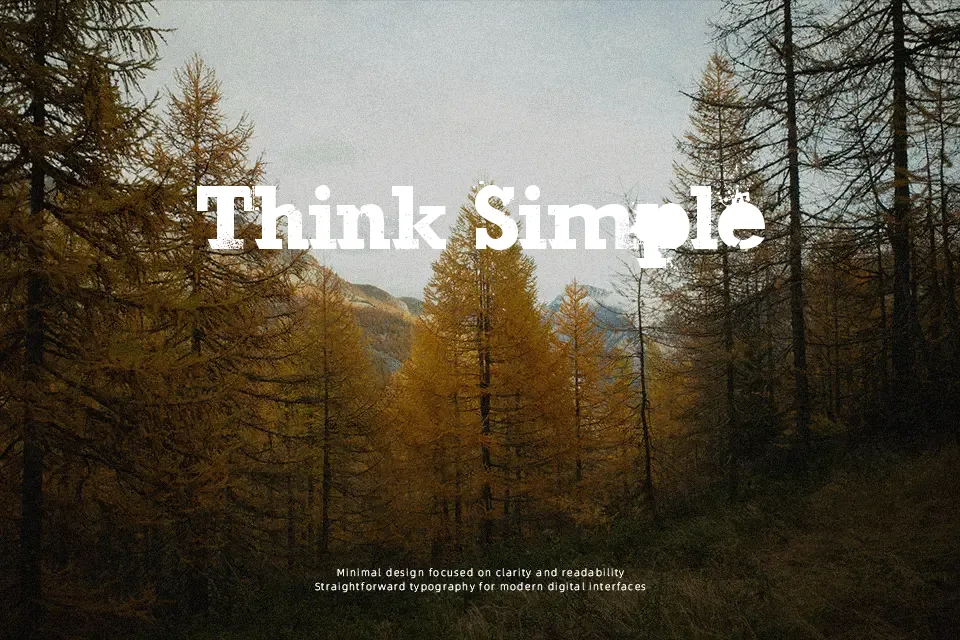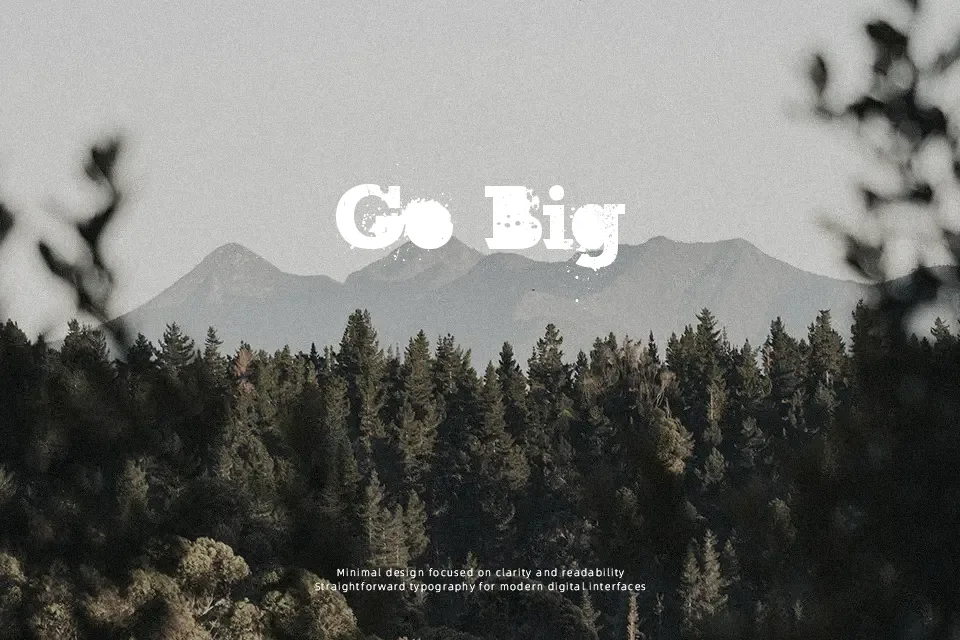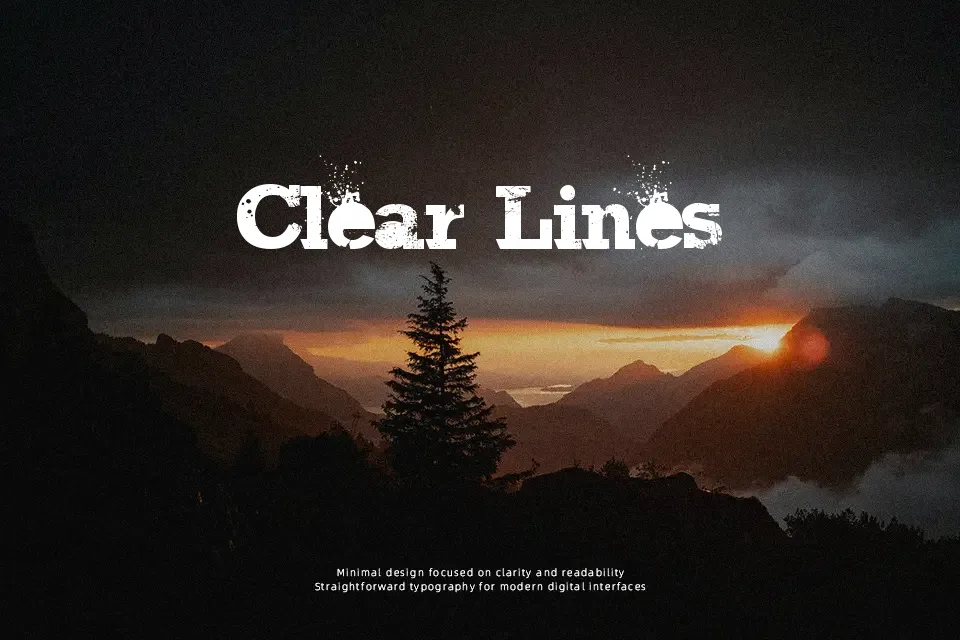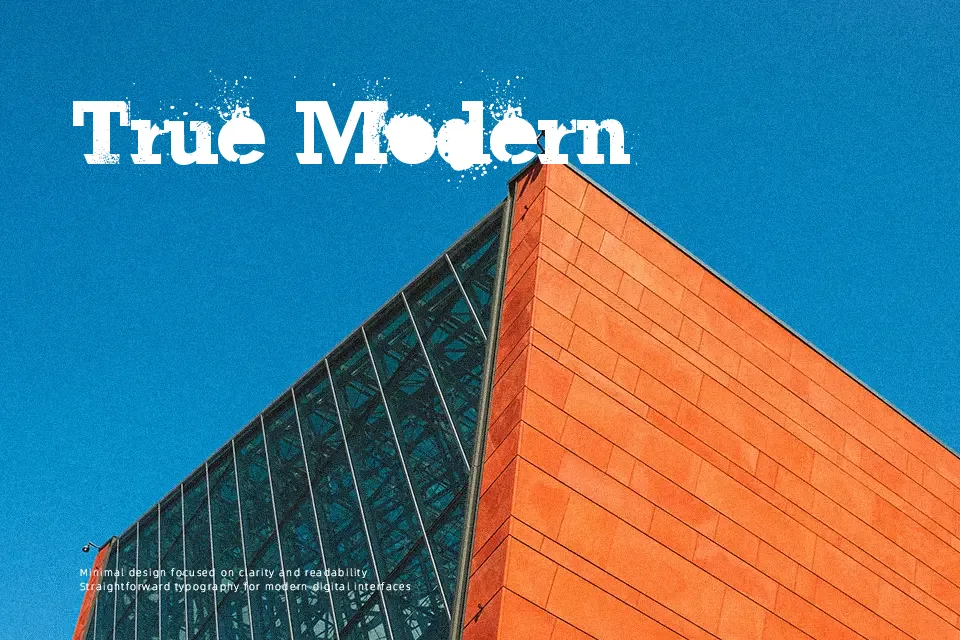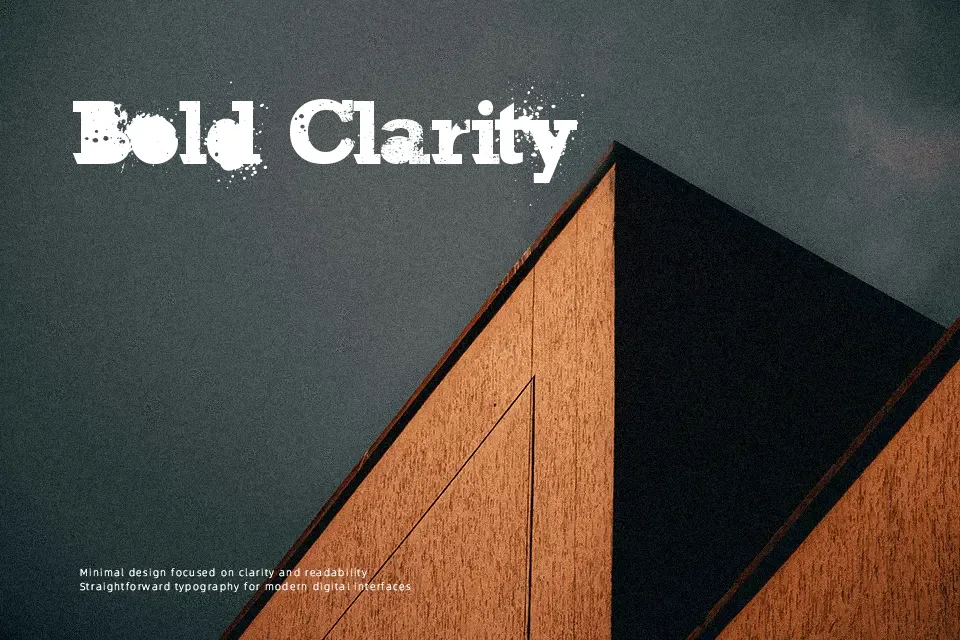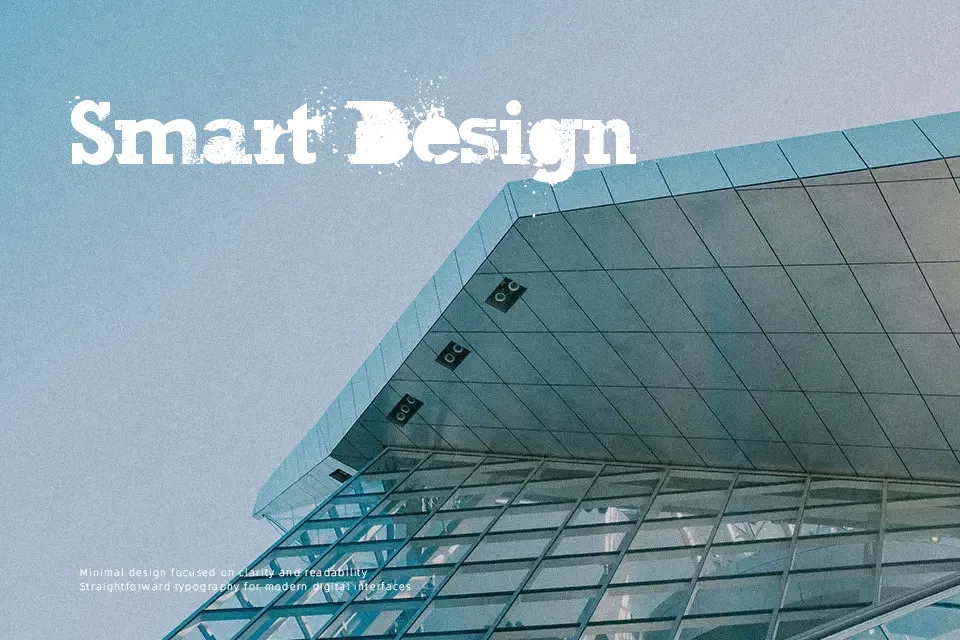
The Great Thunder Font
Built with dense, distressed strokes and heavy slab foundations, The Great Thunder Font commands immediate attention across poster titles and album covers. The letterforms display wide blocky proportions with eroded edges, heavy horizontal weight distribution, and deliberate textural degradation throughout the glyph structures. Tight character spacing reinforces its visual impact, though these weathered details compromise legibility at smaller text sizes. The typeface performs best when displayed at larger sizes where ink wear and eroded cutouts remain visually crisp. Dense eroded forms reduce comfort during extended reading, making it unsuitable for continuous editorial body text.
Best For: music festival posters, streetwear apparel graphics, skate deck prints, heavy metal merchandise
Not Ideal For: continuous editorial text, small UI labels, mobile app buttons, corporate financial reports
Perfect for branding, headline, and music, with a bold and decorative style.